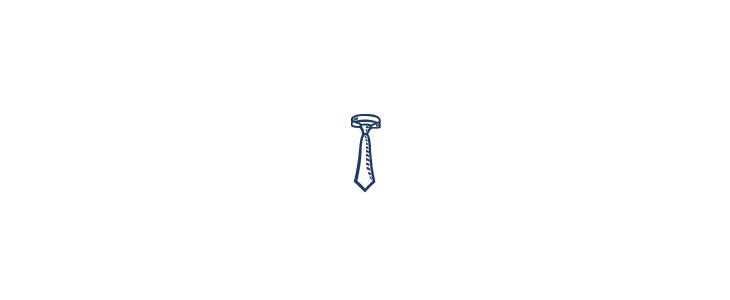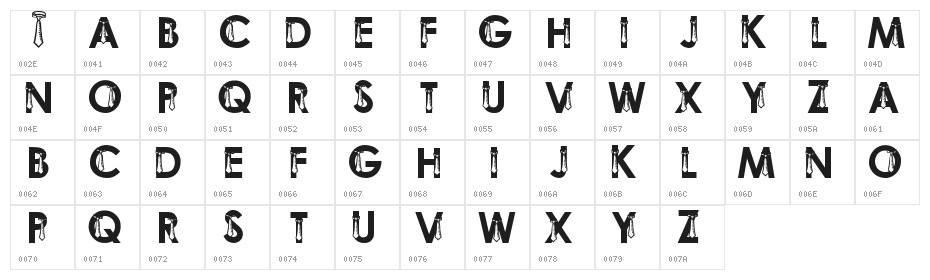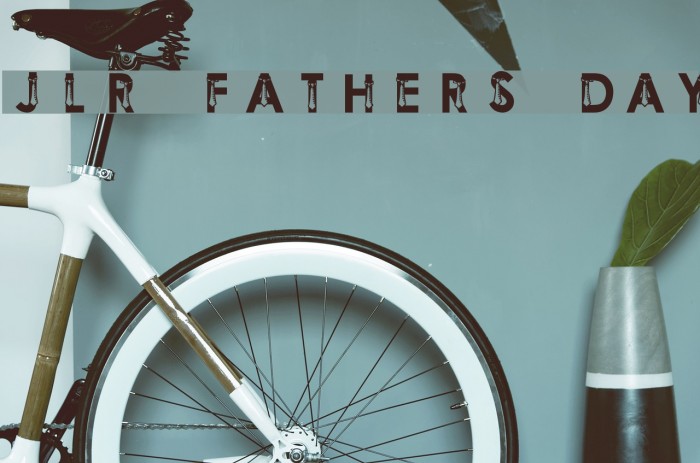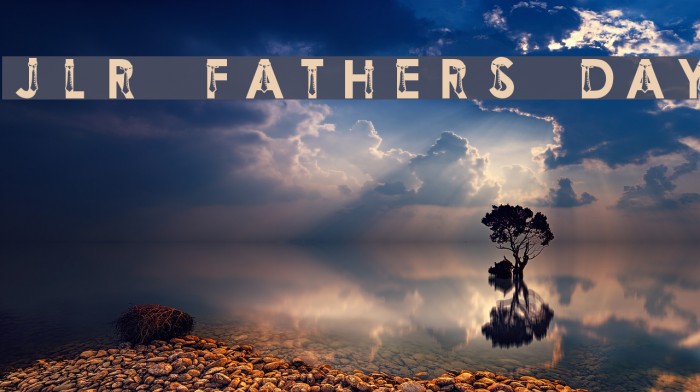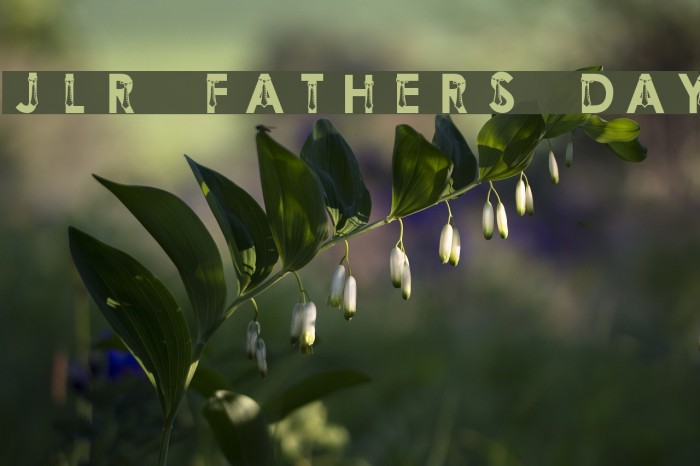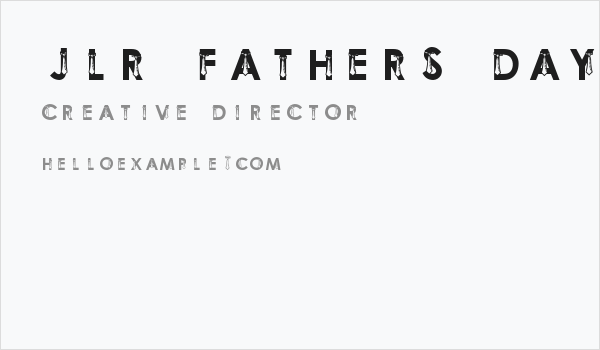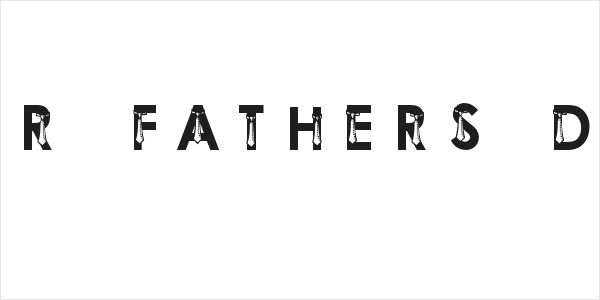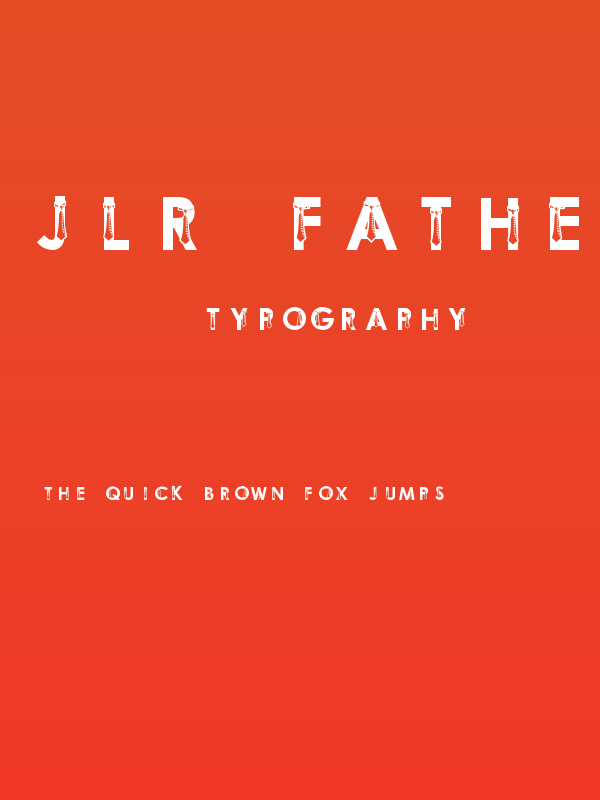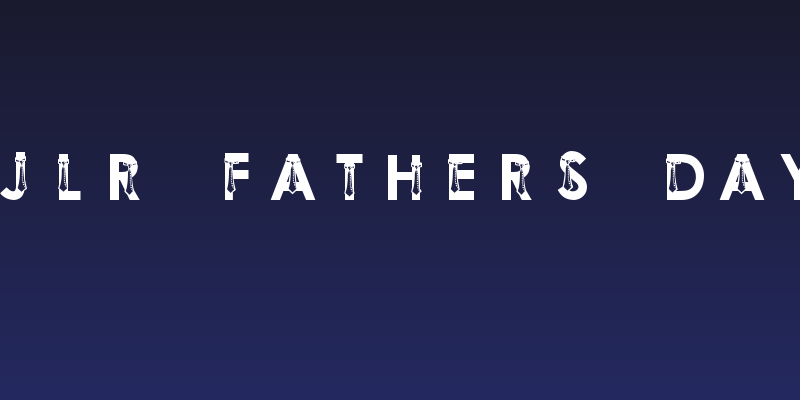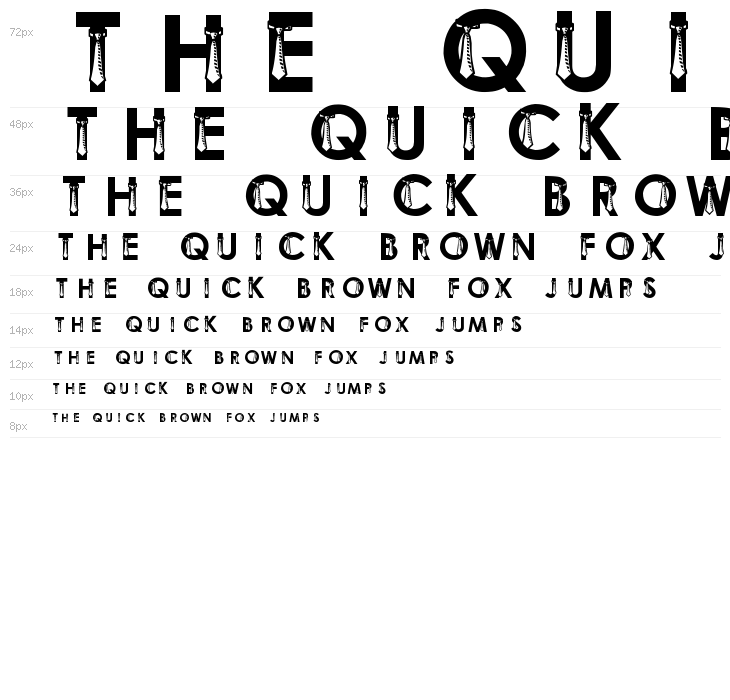
JLR Father's Day Font
JLR Father's Day Description
This font features a bold, decorative style with a playful twist. Each character is designed with a unique pattern that resembles a tie, adding a whimsical and thematic element. The uppercase letters are prominent and eye-catching, making them suitable for standout designs. The font's design incorporates a distressed texture, giving it a rugged and masculine feel, perfect for themes related to Father's Day or similar occasions. The characters are evenly spaced, ensuring readability while maintaining their decorative appeal.
| Proposed Projects | Ideal for Father's Day cards, themed posters, playful branding, and novelty items. |